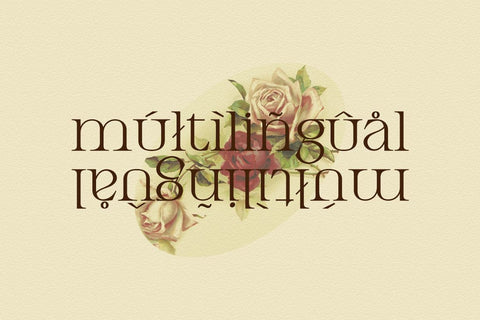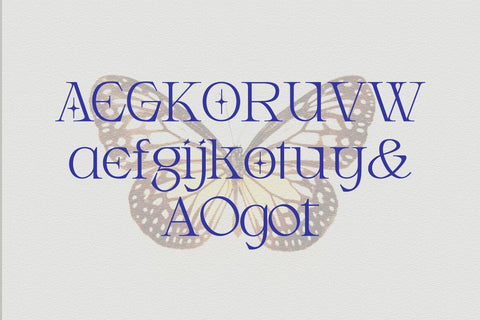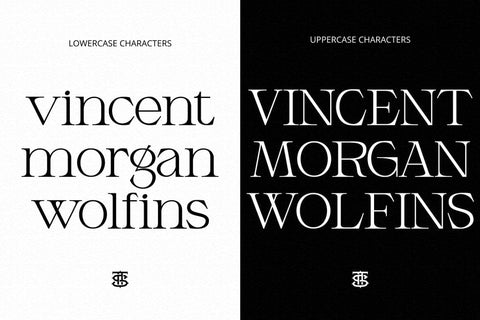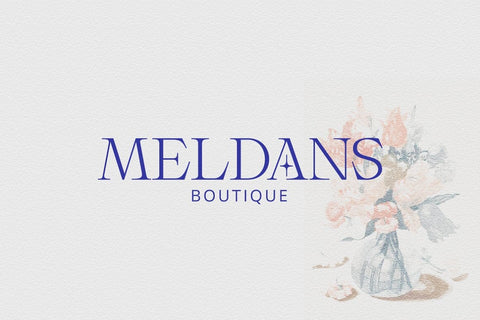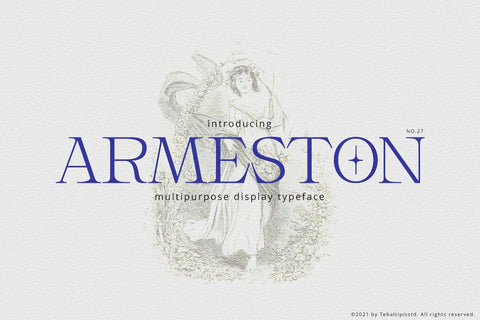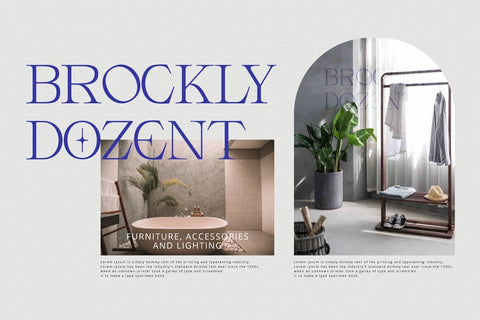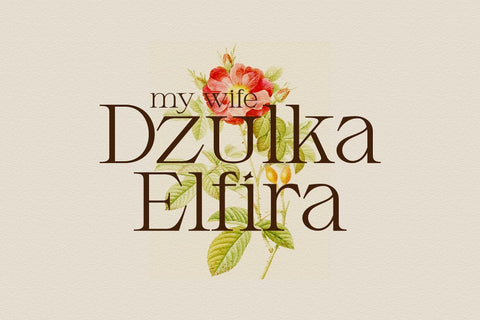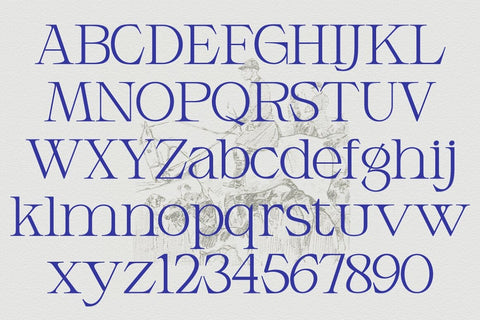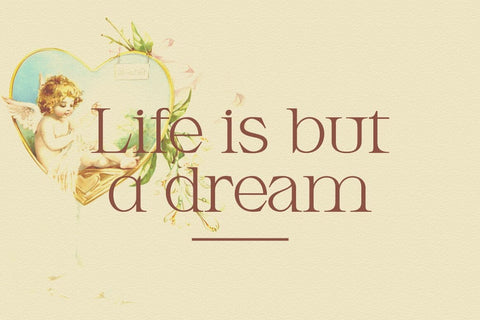
Armeston Display Typeface
Armeston Display - MultiPurpose Serif Typeface - Classic Expressive Fancy Display Font
Armeston Display comes with some alternates, so you can combine it to make a perfect typography design. It is perfect for your up coming projects. Such as luxury logo and branding, classy editorial design, woman magazine, cosmetic brand, fashion promotional, art gallery branding, museum, historical of architectural, boutique branding, stationery design, blog design, modern advertising design, card invitation, art quote, home decor, book/cover title, special events and any more.